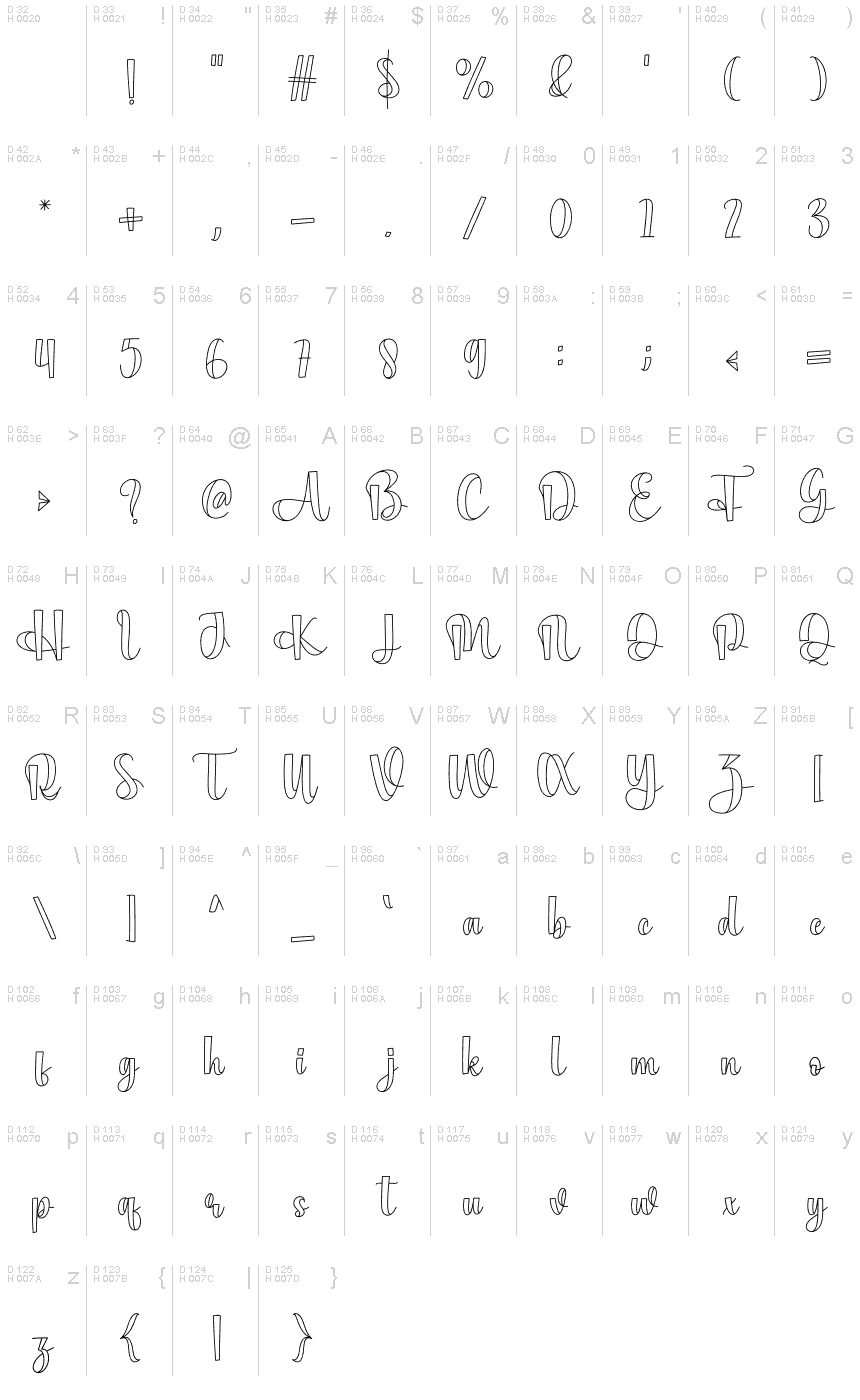
Pendant
Pendant, a masterful creation by Scratchones, stands as a testament to the art of typographic elegance. This outlined script font, with its semi-bold weight, offers a harmonious blend of classic charm and contemporary flair. Its delicate contours and thoughtful spacing make Pendant an ideal choice for designers aiming to infuse their work with sophistication and a personal touch.
Whether gracing wedding invitations or branding upscale products, Pendant ensures that every application it touches is imbued with an air of exclusivity and finesse. Embrace the potential of Pendant to elevate your creative projects to new heights of style.
The latest style letters are perfect for wall displays, wedding invitations, social media post logos,
advertisements, product packaging, product designs, labels, photography, watermarks, invitations, stationery, and any project that requires taste handwriting.